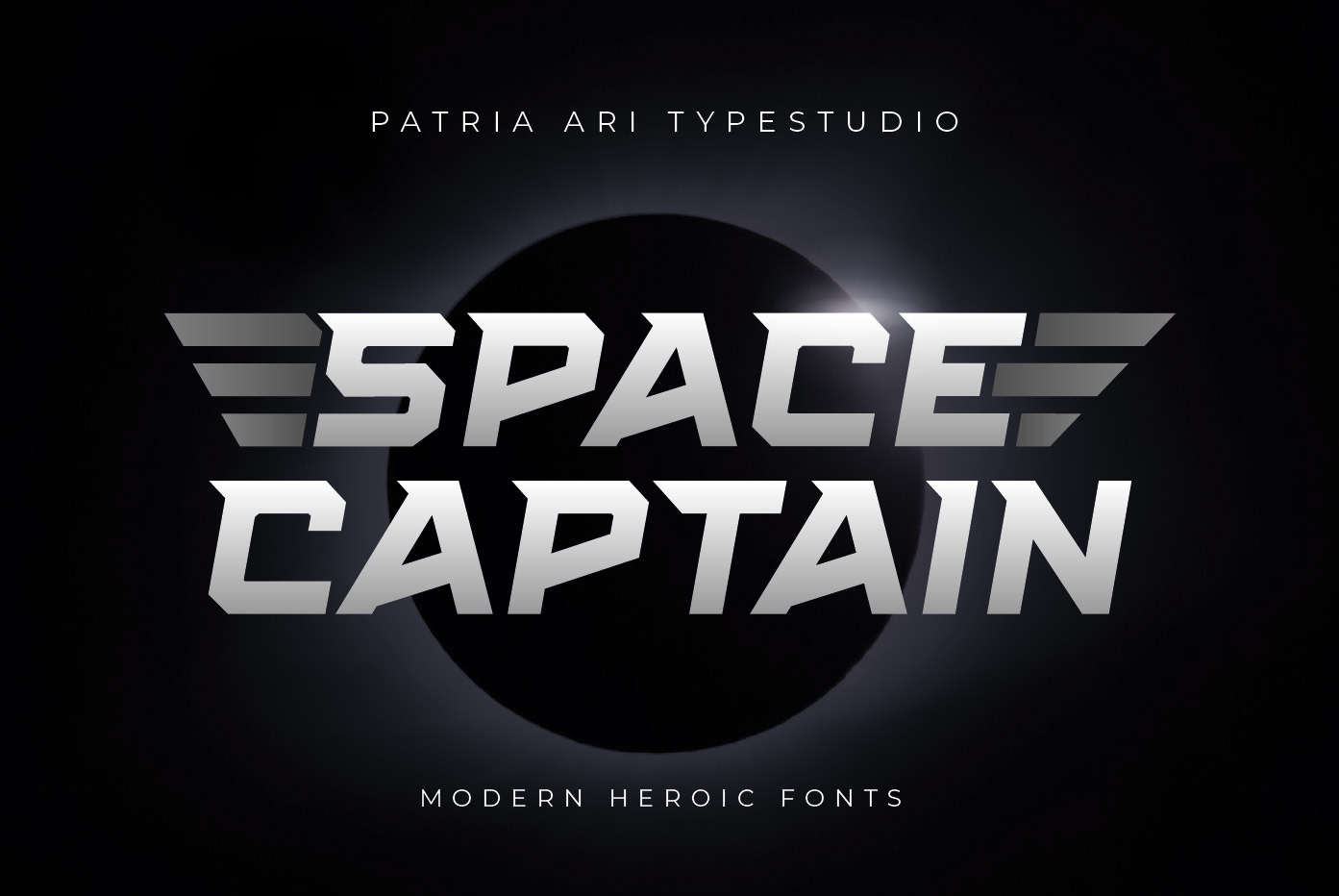
Space Captain - Modern Fonts
Space Captain is a modern all caps font with uniquely sharp and geometric shapes. Alternative wing shapes in the left and right in alphabet included in stylistic alternates.
This font perfect for logotype such as technology, construction, automotive, heavyweight, etc.